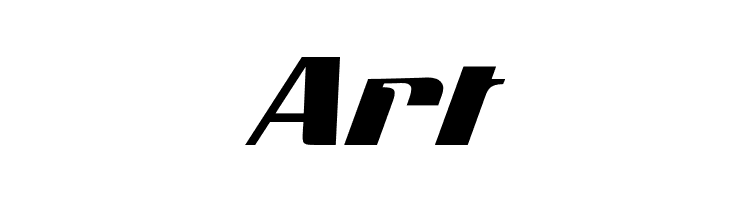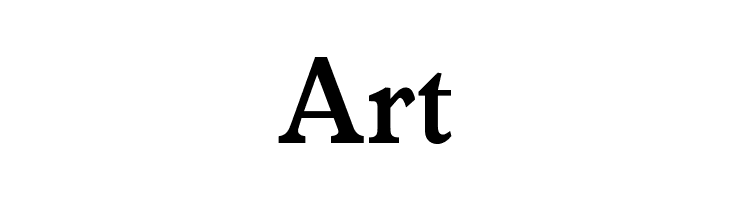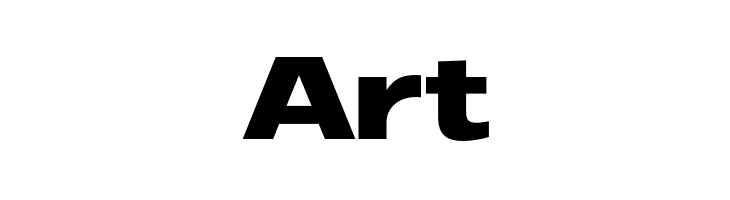
A classic serif font with high contrast and elegant curves.
An elegant outline font with a modern yet classic appeal.
A bold, playful handwritten font with rounded characters.
A tall, narrow font with a modern, elegant design and minimal contrast.
A bold, italic font with a dynamic and modern style.
A bold, impactful font with consistent stroke thickness and high legibility.
A bold, wide font with strong, uniform strokes and tight spacing, perfect for impactful headlines.
A sophisticated, flowing script font with elegant, interconnected characters.
A classic serif font with medium weight and pronounced serifs, offering a blend of tradition and modernity.
A bold, classic serif font with elegant and traditional Italian influences.